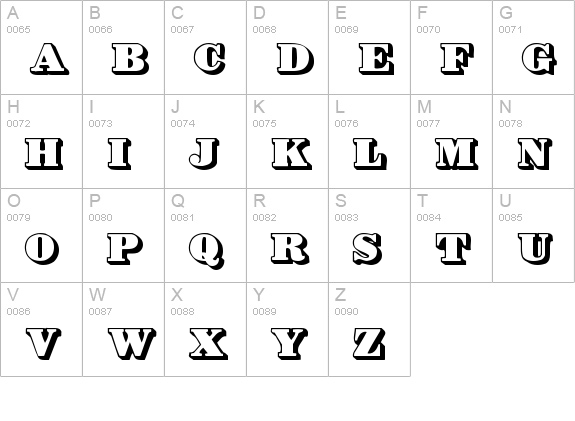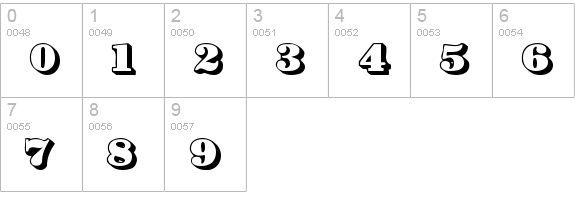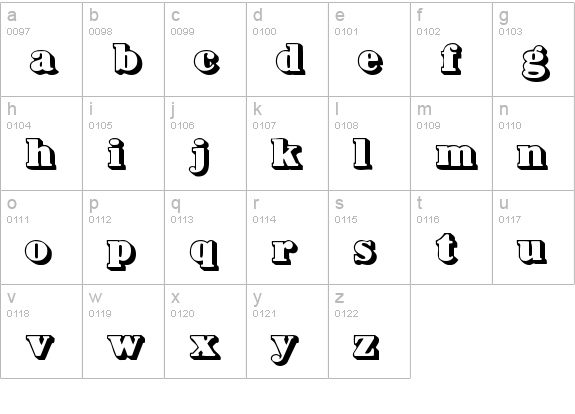
BowersShadow Font Details
BowersShadow font is a stylish and elegant typeface that exudes a sense of mystery and sophistication. With its intricate details and unique design, this font is perfect for adding a touch of drama to your projects. The flowing curves and sharp edges of BowersShadow create a striking visual impact that is sure to captivate your audience. What sets BowersShadow font apart is that it is available for free download at FontsMarket.com. This means you can easily access this stunning font and incorporate it into your designs without any cost. Whether you're working on a branding project, website design, or any other creative endeavor, BowersShadow font is a versatile choice that will elevate your work to the next level. Embrace the elegance and allure of BowersShadow font and make a statement with your typography. Download this exquisite font for free today and let your creativity shine.